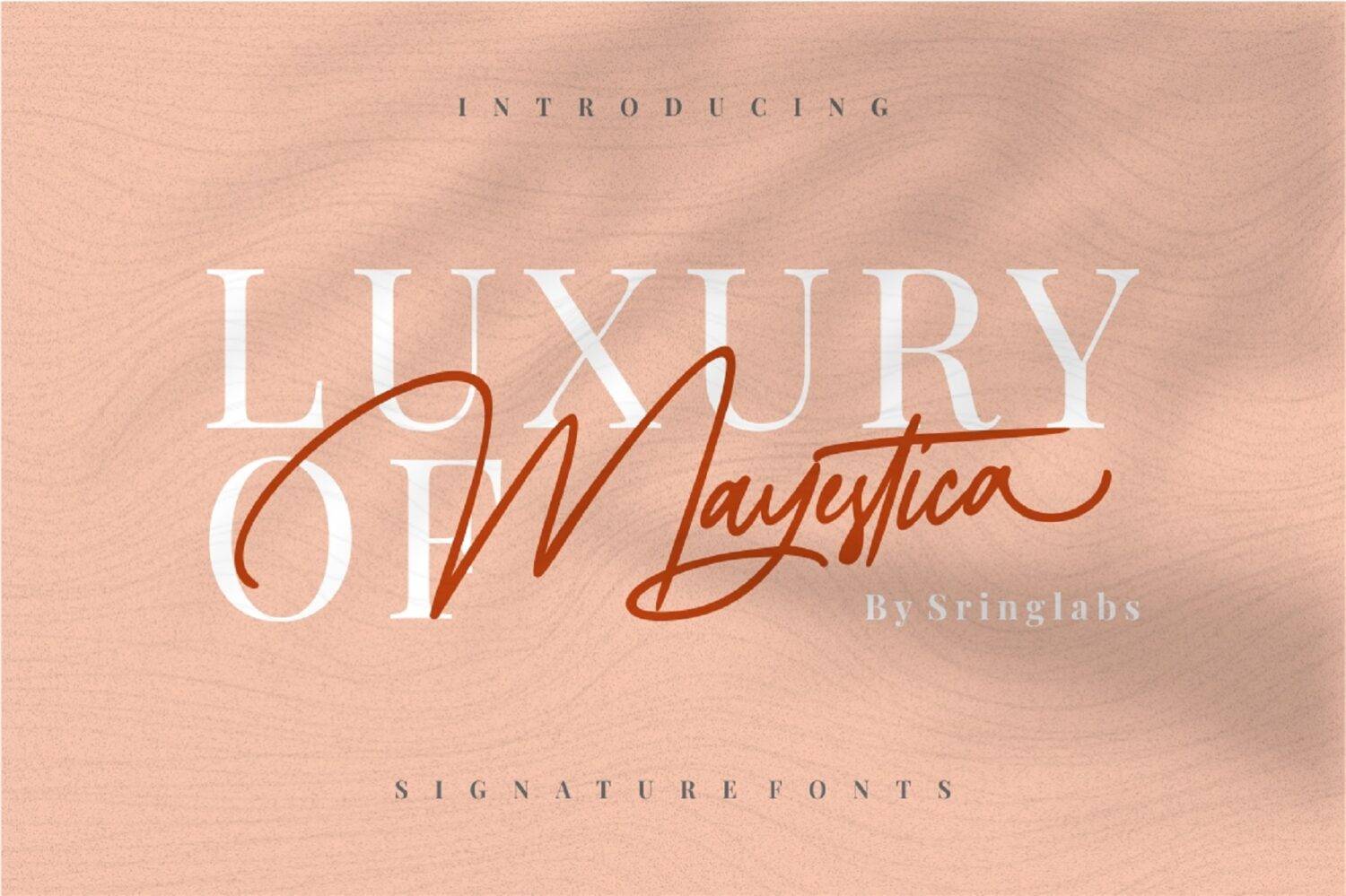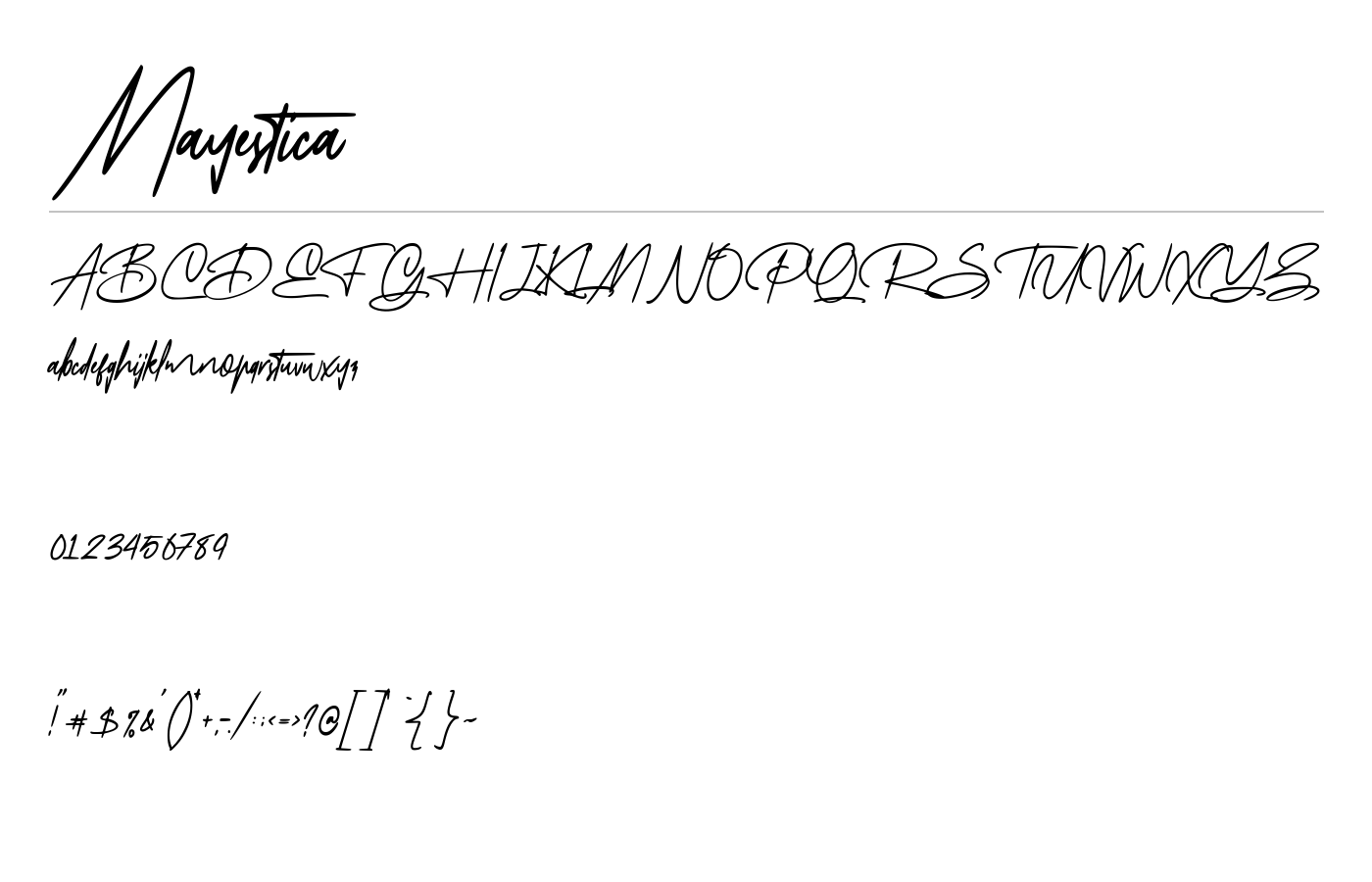
Mayestica is a delicate, elegant script font that mimics a refined, luxury signature with its slender, flowing lines and natural handwritten style. Its tall, narrow letterforms and varying stroke widths create a sophisticated, personal feel perfect for high-end branding, fashion logos, and exclusive packaging. This font works beautifully where a touch of class and individuality is needed to convey elegance and exclusivity.
Mayestica – Luxury Signature Font
About Mayestica – Luxury Signature Font
| Font family | Mayestica – Luxury Signature Font |
| Designer | Stringlabs |